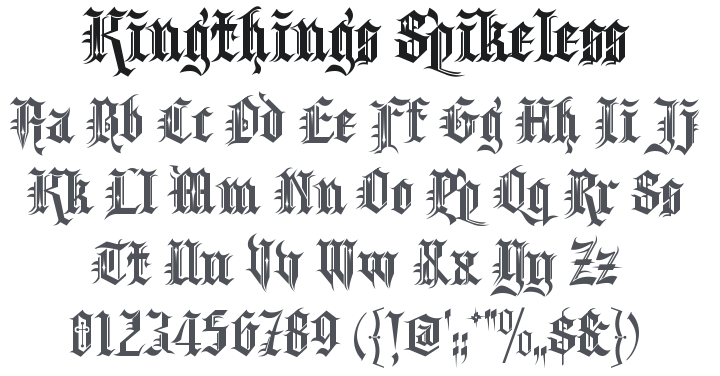
Kingthings Spikeless Font
About Kingthings Spikeless
Kingthings Spike and Kingthings Spikeless are the most intractable faces that I have worked with (until I started Wrote!) I made them originally because Buffy has her own font - (find it on the web called 'Buffied') - I made one for Xander - Spike is another small tribute to a fabulous show. Spikeless makes Spike more useable because if you want to actually need to be able to read the lettering, Spike can be a little over the top.